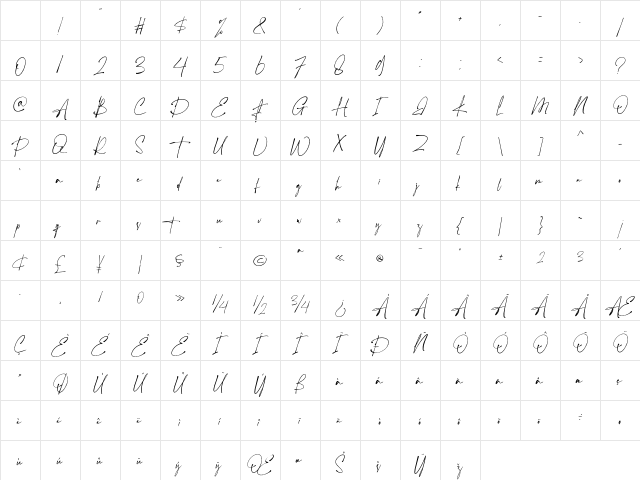
The Hamstter is a composed and adaptable typeface that performs quietly and consistently across a wide range of design contexts.
Pro Tip: Use The Hamstter in both headline and body roles to test its range before committing to a single application.